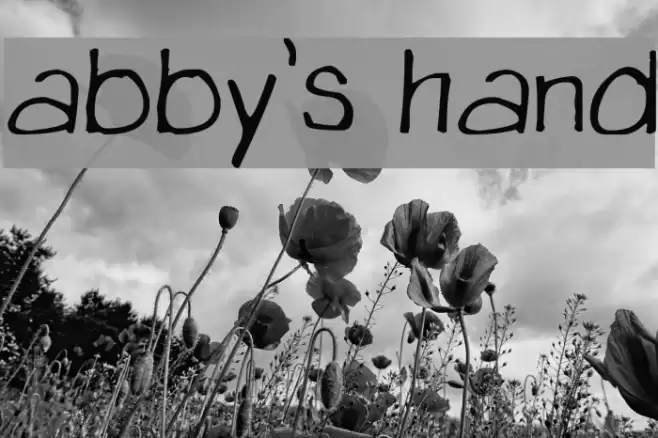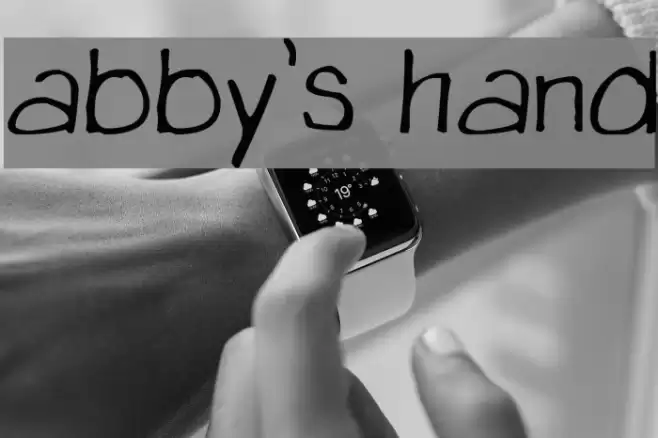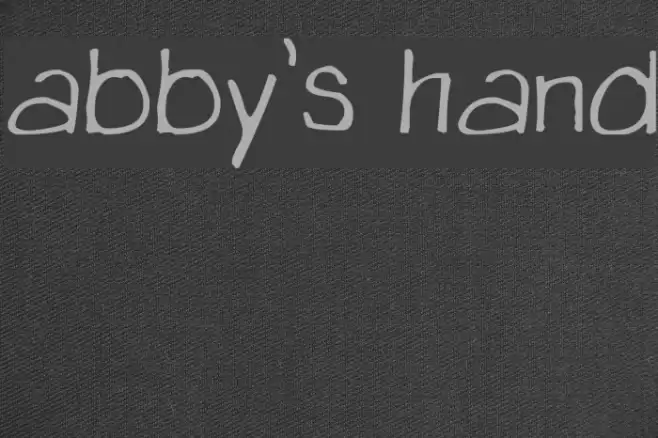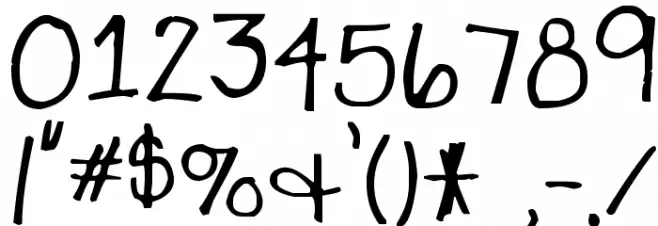
abby's hand Font
abby's hand Description
This font features a playful and informal handwritten style, characterized by its irregular and slightly whimsical letterforms. The uppercase letters are tall and narrow, with a slight slant that adds to the casual feel. The lowercase letters maintain a consistent style, with rounded edges and varying stroke widths that mimic natural handwriting. Numbers and special characters follow the same playful aesthetic, making the font versatile for creative projects. The overall appearance is friendly and approachable, suitable for designs that aim to convey a personal touch.
A playful, informal handwritten font with irregular, whimsical letterforms from Uncategorized fonts.
- Proposed Projects: Ideal for greeting cards, children's books, personal blogs, and casual branding.
- Overall Style: Casual, Playful
- Use Case: Headlines, Informal text, Creative projects